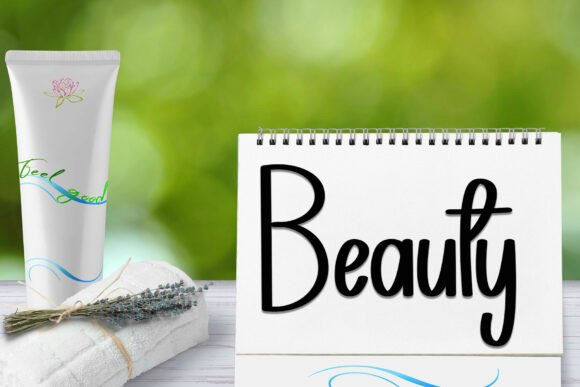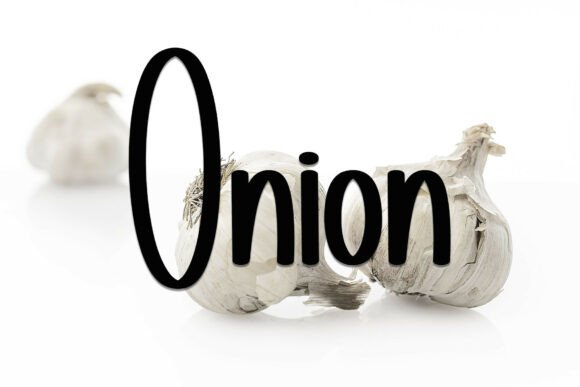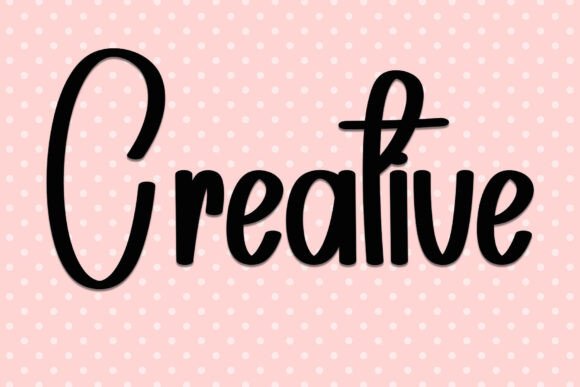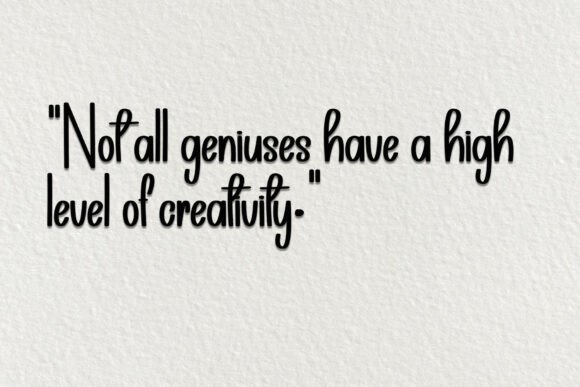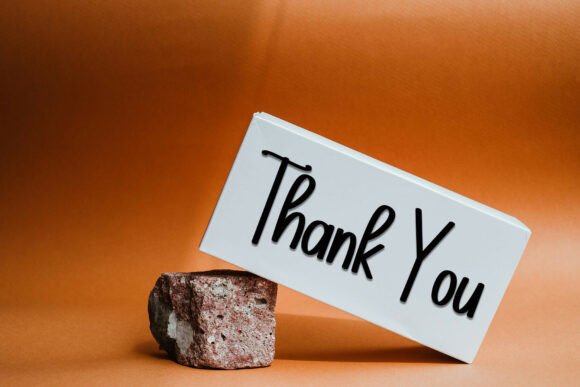
Introducing Grilled Chicken Font: The Sweet and Cursive Handwritten Font for Your Design Needs
Are you looking for a font that can add a touch of elegance and whimsy to your designs? Look no further than Grilled Chicken Font, a beautiful sweet and cursive handwritten font that is perfect for a variety of design projects. In this article, we’ll explore the features and benefits of Grilled Chicken Font, and show you how it can elevate your designs to the next level.
A Font that Exudes Joy and Romance
Grilled Chicken Font is a gentle and charming font that is sure to bring a smile to your face. Its sweet and cursive handwritten style is perfect for designs that require a touch of romance and whimsy. Whether you’re working on a wedding invitation, a greeting card, or a fashion lookbook, Grilled Chicken Font is the perfect choice. Its flowing lines and delicate curves will add a touch of elegance and sophistication to your designs, making them stand out from the crowd.
Grilled Chicken Font is a versatile font that can be used for a wide range of design projects. Its elegant and cursive style makes it perfect for:
- Branding: Use Grilled Chicken Font to create a unique and memorable brand identity that will set you apart from your competitors.
- Logo Design: Create a stunning logo that showcases your brand’s personality and style with Grilled Chicken Font.
- Wedding Things: Add a touch of romance and elegance to your wedding invitations, programs, and other stationery with Grilled Chicken Font.
- Greeting Cards: Create beautiful and heartfelt greeting cards for any occasion with Grilled Chicken Font.
- Fashion: Use Grilled Chicken Font to create stunning fashion lookbooks, catalogs, and advertisements that showcase your brand’s style and personality.
- Marketing Promotion: Add a touch of elegance and sophistication to your marketing materials, such as brochures, flyers, and posters, with Grilled Chicken Font.
Why Choose Grilled Chicken Font?
So why choose Grilled Chicken Font for your design needs? Here are just a few reasons:
- Unique and Elegant: Grilled Chicken Font is a unique and elegant font that will add a touch of sophistication to your designs.
- Versatile: Grilled Chicken Font can be used for a wide range of design projects, from branding and logo design to wedding stationery and fashion lookbooks.
- Easy to Read: Grilled Chicken Font is easy to read and understand, making it perfect for designs that require a clear and concise message.
- Customizable: Grilled Chicken Font can be customized to fit your design needs, allowing you to create a unique and personalized look.
Tips for Using Grilled Chicken Font
Here are a few tips for using Grilled Chicken Font in your designs:
- Pair it with a bold font: Pair Grilled Chicken Font with a bold font to create a striking contrast and add visual interest to your design.
- Use it for headings: Use Grilled Chicken Font for headings and titles to add a touch of elegance and sophistication to your design.
- Experiment with colors: Experiment with different colors and textures to add depth and visual interest to your design.
Grilled Chicken Font is a beautiful and versatile font that is perfect for a wide range of design projects. Its sweet and cursive handwritten style is sure to add a touch of elegance and whimsy to your designs, making them stand out from the crowd. Whether you’re a designer, crafters, or DIY enthusiast, Grilled Chicken Font is a must-have font that will take your designs to the next level.